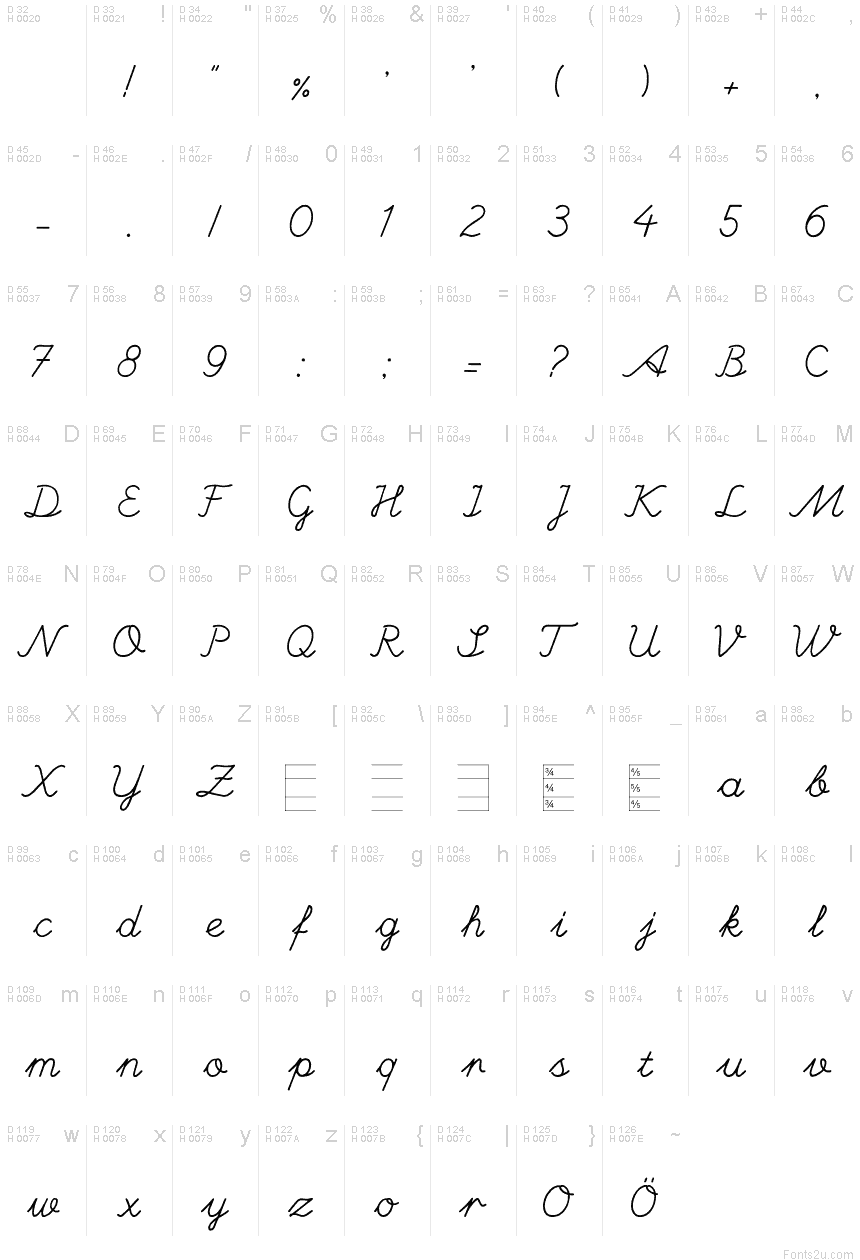
Hand writing Mutlu
Hand Writing Mutlu font is a free handwritten script typeface. Each letter flows into the next with easy, looping connections and a smooth, inky stroke that feels like it was written in one relaxed movement. The rhythm is steady and legible, so you get that intimate, handwritten vibe without sacrificing clarity, even in slightly longer words or phrases.
Using Hand Writing Mutlu, your text instantly takes on a personal, signature-like feel that shines on invitations, name badges, branding for boutiques, product packaging, photo captions, and social media graphics. The rounded curves and even weight make this free font especially good for friendly, approachable messaging. Try pairing it with a clean sans serif for body copy and keep Hand writing Mutlu a size or two larger so the script can breathe and stay readable.